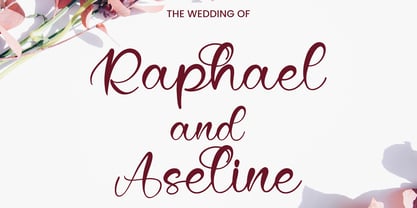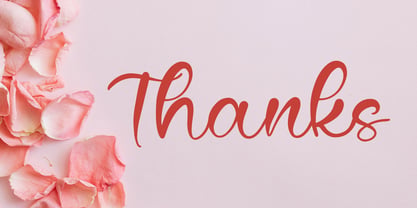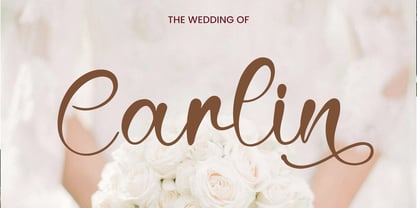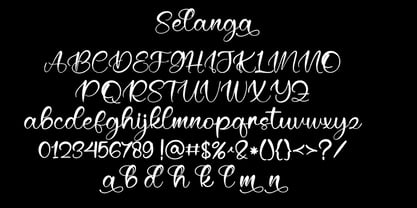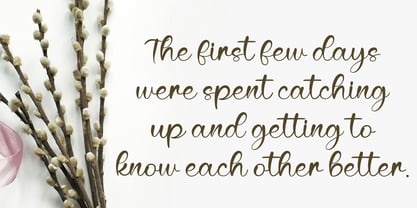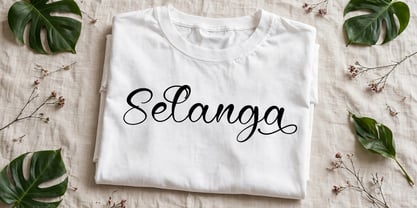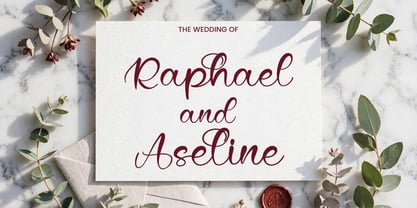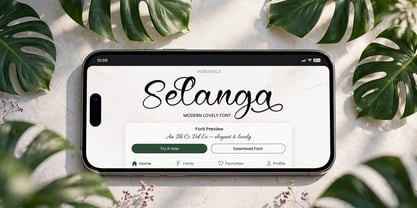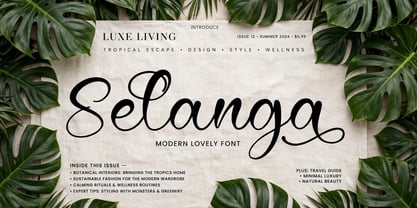
Selanga
by Ayska
The Selanga Font Family was designed by Dhoni Trihatmoko and published by Ayska. Selanga contains 1 styles. More about this family
Selanga a stunning, sophisticated typeface that exudes elegance and charm, featuring lots of alternate characters, ligatures, and beautiful strokes. It will be perfectly used for Branding, Logo Design, Lettering, Logotype, Clothing, Poster, magazine, packaging, posters, shopping bags, t-shirts, book covers, photography, special events and other design project. With our fonts, you’re not just designing; you’re crafting experiences, sparking emotions, and leaving a lasting impact. Get started and let your creativity flow like never before!